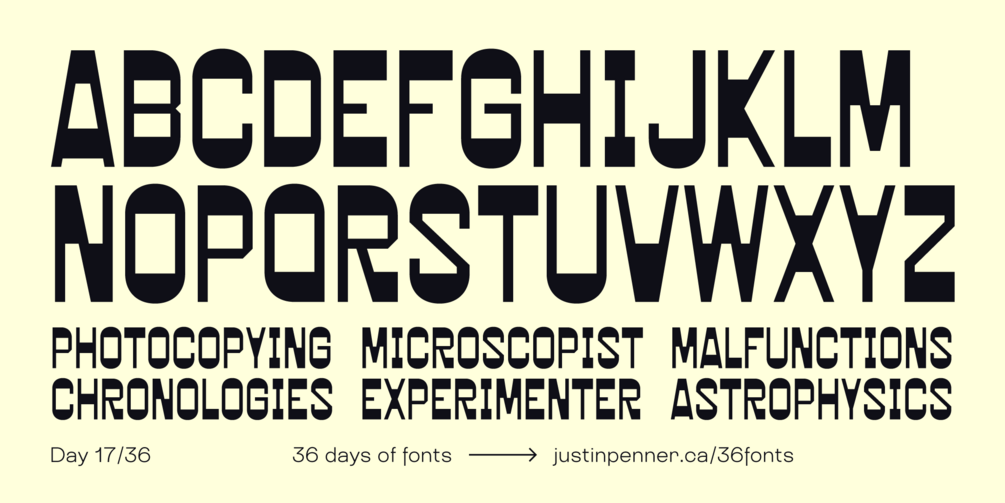
36 Days of Fonts: Day 17
Star Inversion
This one is loosely inspired by a specific lettering style I hadn't seen before, found on another sci-fi book cover. Sci-fi and reverse contrast are a weird mix for sure, but the sample on the book cover had some interesting solutions that I adapted to my design.